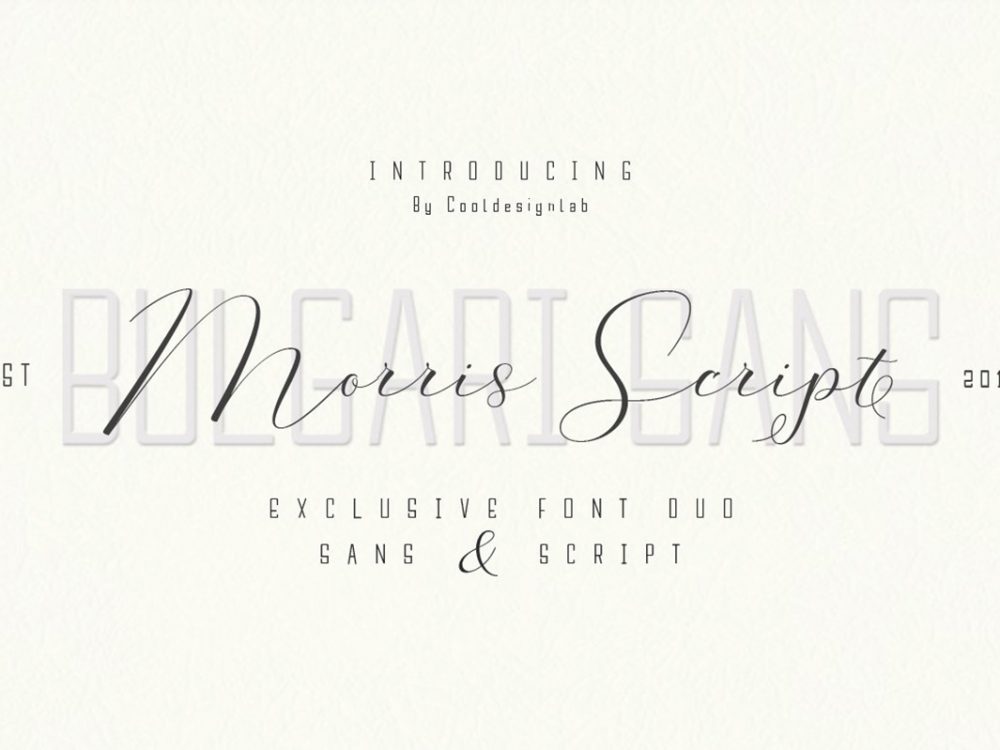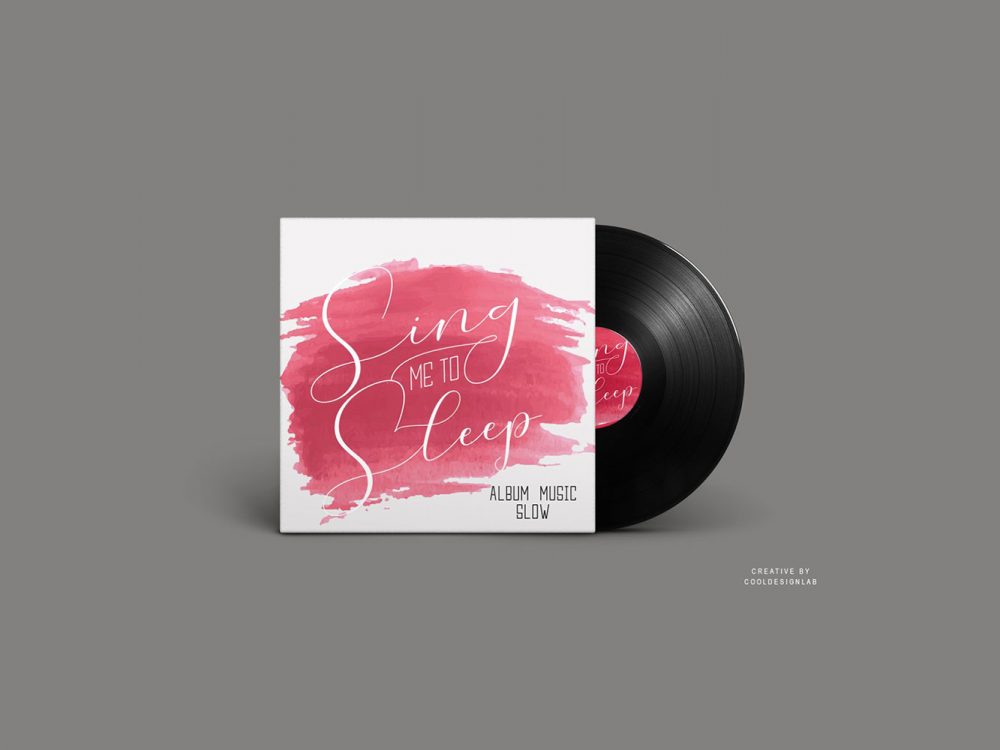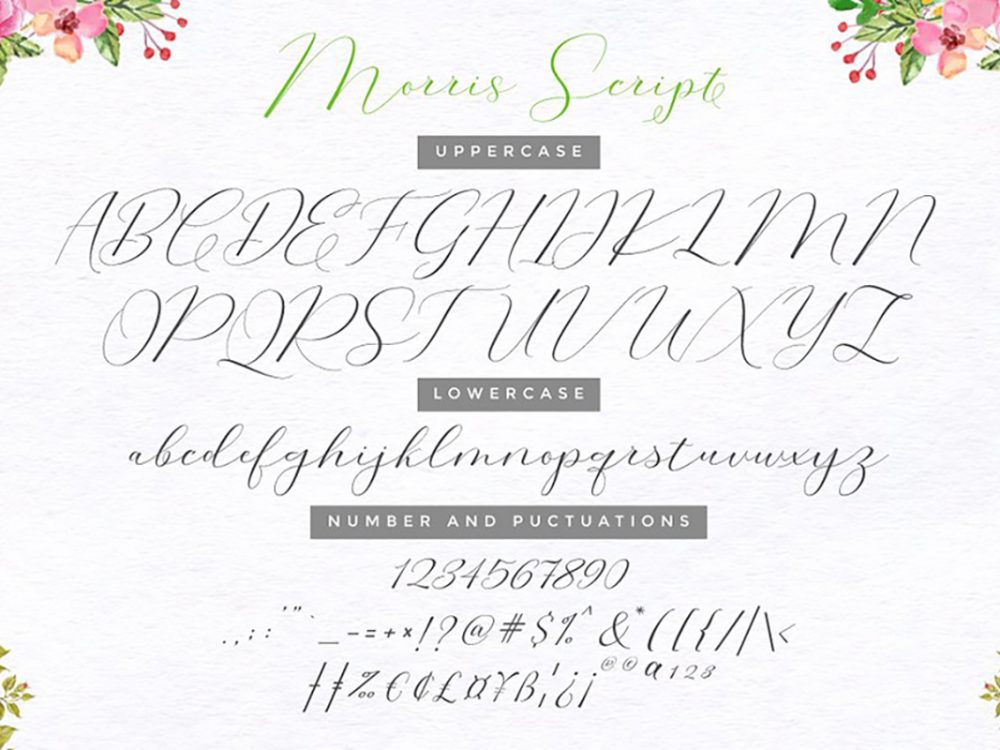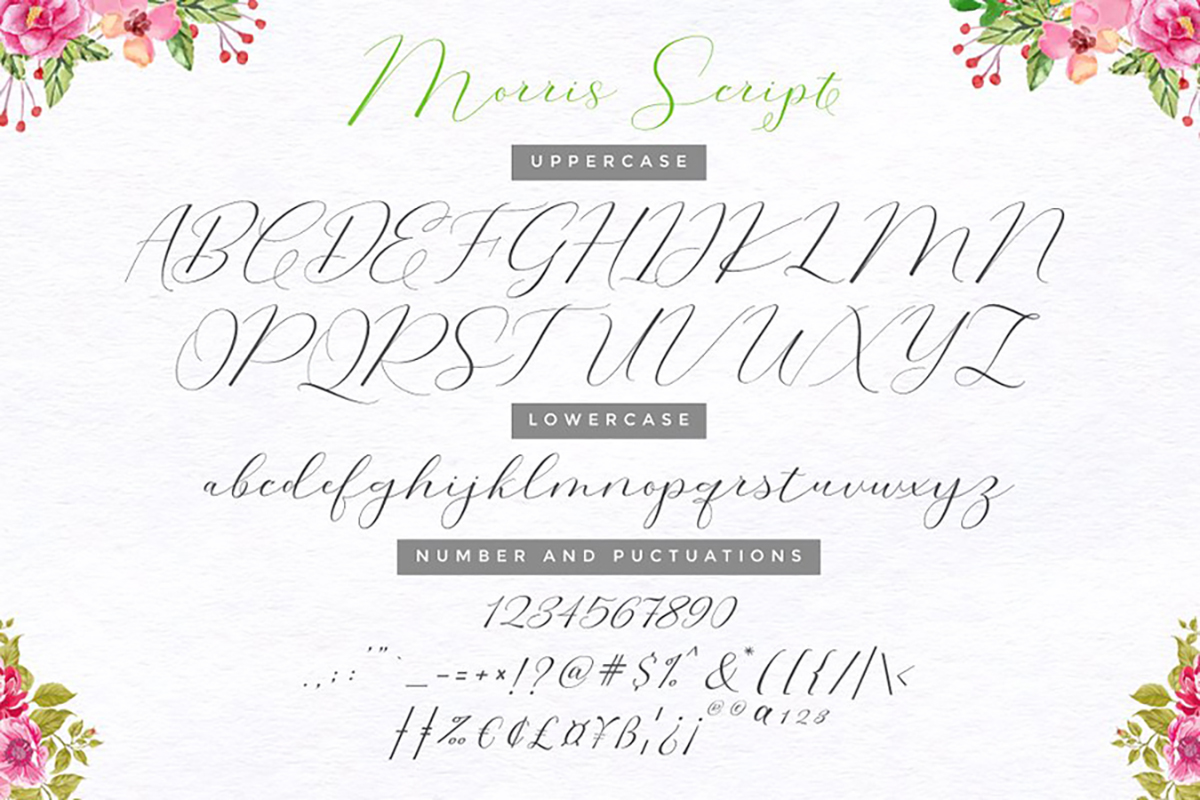
Morris Signature Script Font
Morris Signature Script Font is an interesting modern handwritten font that has an elegant style and is very well suited for a variety of design projects that require a script font. Use this font to create posters, wedding invitations, greeting cards, branding, flyers, prints, and more. If you wish to access more features and use it for commercial work please buy the full version.